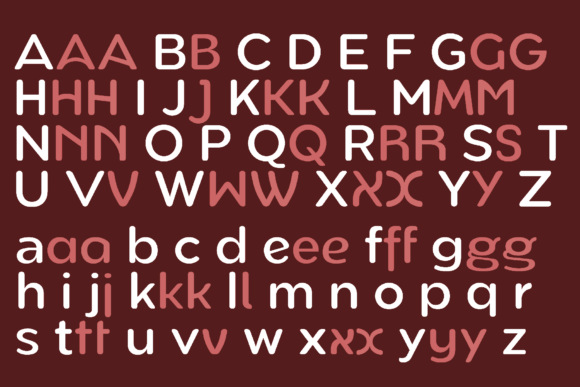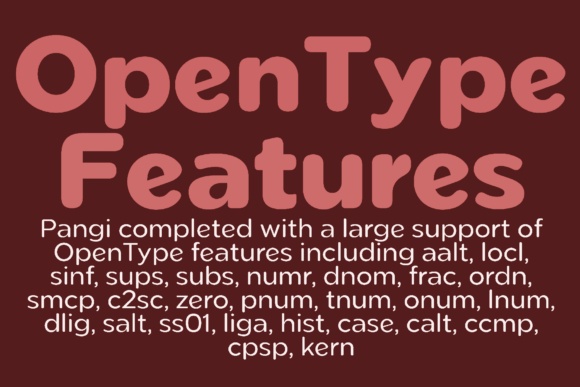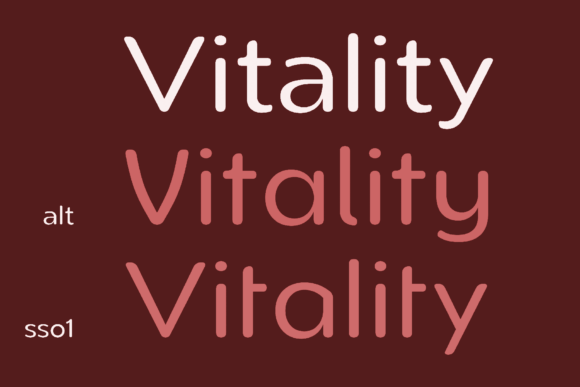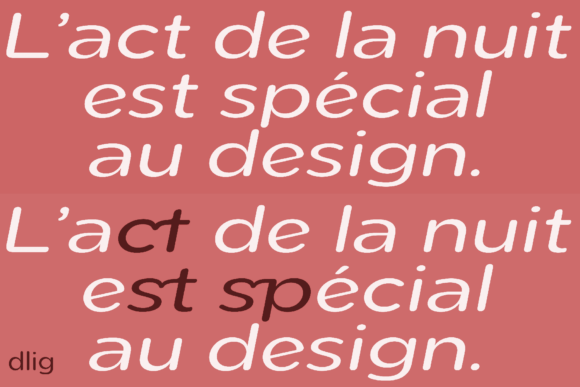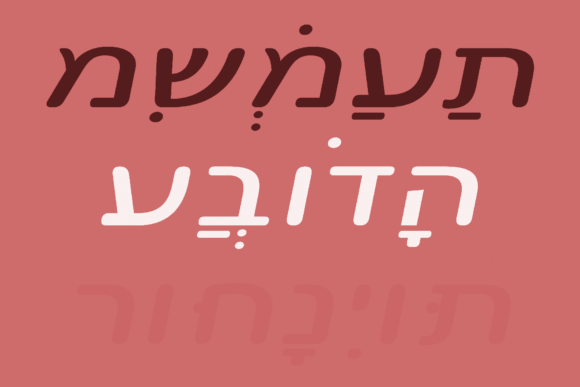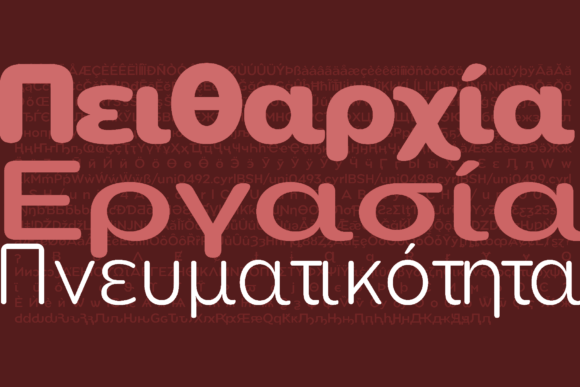
Introduction to Pangirounded Expregular Font
Have you ever stared at a blank page, eager to start a new creative project, but struggling to find the perfect font to bring your vision to life? I know I have. That’s why I’m excited to introduce you to the Pangi Rounded Expanded font, a game-changing design resource that’s about to become your new best friend.
This fantastic font family is the perfect blend of clean geometric shapes and a friendly, modern vibe, making it the ideal choice for any design project. With its bold and approachable look, you’ll be able to create stunning visuals that grab attention and leave a lasting impression. Plus, with 260 fonts to choose from, you’ll never run out of options to suit your needs.
Whether you’re working on a poster, website, or packaging design, the Pangi Rounded Expanded font is the perfect companion to help you achieve high-quality results with ease. And the best part? It’s available for free download, so you can get started right away.
Key Features of Pangirounded Expregular Font
- Unique Rounded Design: The Pangirounded Expregular Font features a distinctive rounded design, making it ideal for creative projects that require a modern and playful touch.
- High-Quality Design Resource: This font is a high-quality design resource that can elevate any project with its clean and sophisticated lines.
- Perfect for Creative Projects: The Pangirounded Expregular Font is ideal for a wide range of creative projects, from branding and marketing materials to digital art and design.
Honest Review: Pangirounded Expregular Font
I recently had the chance to work with the Pangirounded Expregular Font on a creative project and I’m excited to share my thoughts on this design resource. One of the things that stood out to me is the high quality of the font. It’s clear that a lot of attention to detail went into creating this font, and it shows in the crisp lines and smooth curves.
- ✨ Clean and modern aesthetic that’s perfect for a variety of design projects
- ✨ High quality rendering, even at small font sizes
One of the limitations I encountered was the lack of a transparent background option. While this wasn’t a major issue for my project, it’s something to consider for designers who need to use this font on a transparent background.
Overall, I’m impressed with the Pangirounded Expregular Font and would definitely recommend it to designers looking for a high-quality, free font. While it’s not perfect, it’s a great addition to any design arsenal.
The Pangirounded Expregular Font is perfect for creative projects, such as logos, business cards, and brochures. It’s also great for design resources, like infographics and presentations. With its high-quality design and transparent background, this font is ideal for any project that requires a professional and stylish look.
With its versatility and ease of use, the Pangirounded Expregular Font is a must-have for any design enthusiast. Whether you’re working on a commercial project or a personal creative endeavor, this font is sure to impress. So why wait? Download the Pangirounded Expregular Font today and experience the difference it can make in your design projects. With its limitless possibilities, you’ll be amazed at what you can create.